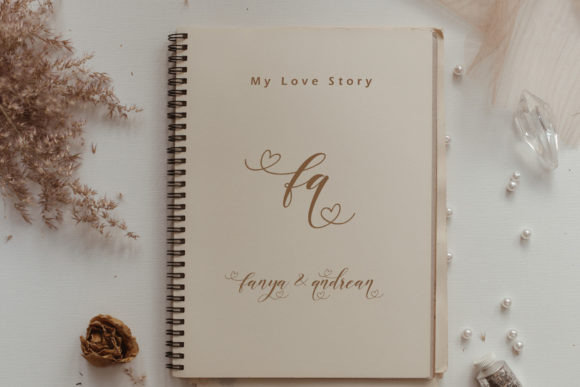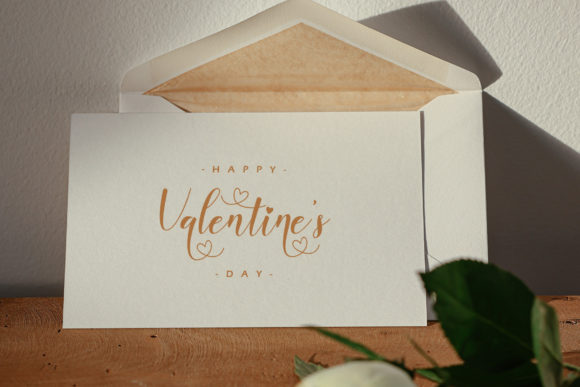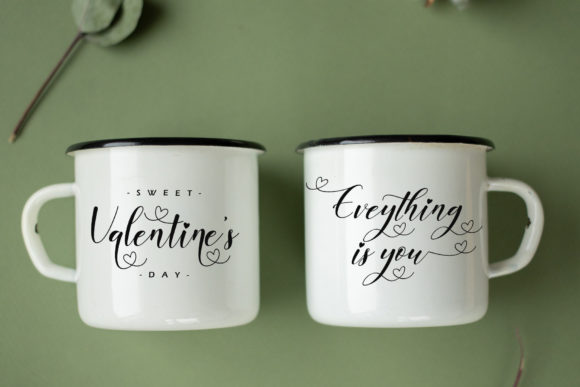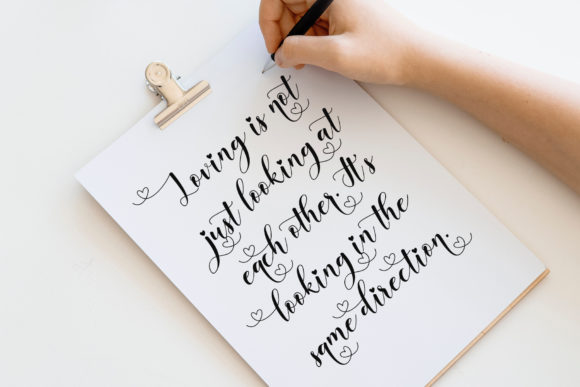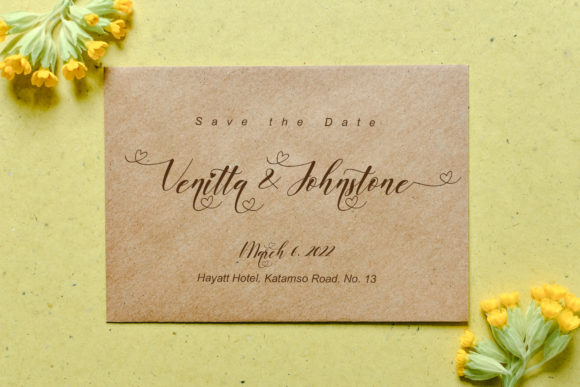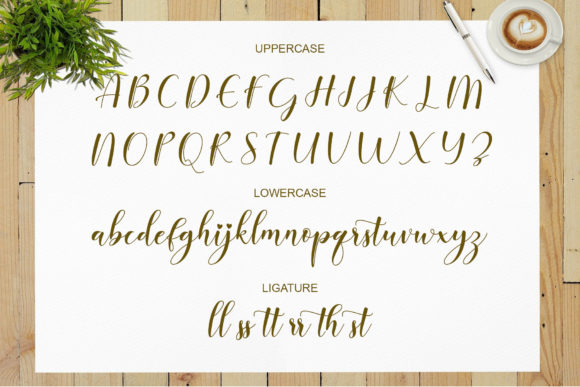
Introducing First Valentine Font: The Ultimate Romantic Script Font for Designers and Crafters
Are you looking for a font that can add a touch of luxury and romance to your design projects? Look no further than the First Valentine Font! This beautiful script font is designed to make your designs stand out with its elegant and sweet characters that dance along the baseline.
What Makes First Valentine Font So Special?
First Valentine Font is a romantic and sweet script font that is perfect for designers and crafters who want to add a touch of elegance to their projects. The font features characters that dance along the baseline, creating a beautiful and flowing script that is sure to impress. Whether you’re designing a wedding invitation, a romantic dinner menu, or a lovely greeting card, this font is sure to add a luxury spark to your design.
One of the best things about First Valentine Font is that it is PUA (Private Use Area) encoded. This means that you can access all of the amazing glyphs and ligatures with ease, making it simple to create beautiful and unique designs. With PUA encoding, you can easily access the font’s extensive character set, including swashes, alternates, and ligatures, to add an extra touch of elegance to your designs.
First Valentine Font is versatile and can be used for a wide range of design projects, including:
- Romantic dinner menus and place cards
- Lovely greeting cards and gift tags
- Elegant branding and packaging designs
- Beautiful scrapbooking and journaling projects
Why Choose First Valentine Font?
There are many script fonts available, but First Valentine Font stands out from the rest. Here are just a few reasons why:
- Unique and elegant character design
- Versatile and can be used for a wide range of design projects
- Luxury and romantic feel that’s perfect for special occasions
Tips for Using First Valentine Font
Here are a few tips for using First Valentine Font in your design projects:
- Use it as a headline font to add a touch of elegance to your design
- Pair it with a simple sans-serif font for a beautiful contrast
- Don’t be afraid to get creative and try out new and unique design ideas
First Valentine Font is a beautiful and elegant script font that is perfect for designers and crafters who want to add a touch of luxury and romance to their design projects. With its unique character design, PUA encoding, and versatility, this font is sure to become a favorite in your design arsenal. So why wait? Download First Valentine Font today and start creating beautiful and romantic designs that will leave a lasting impression!